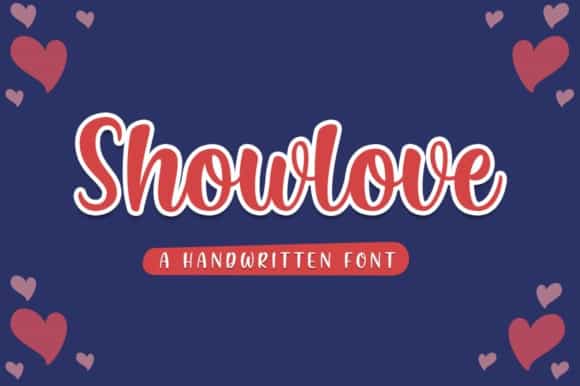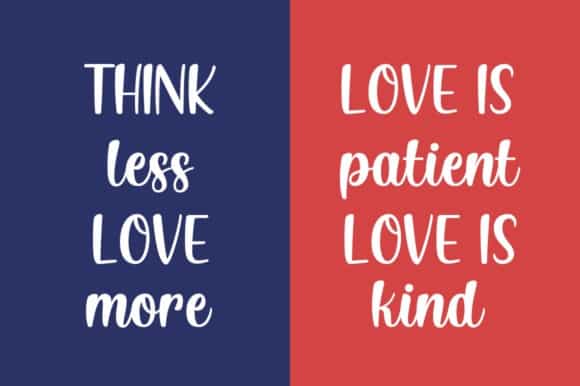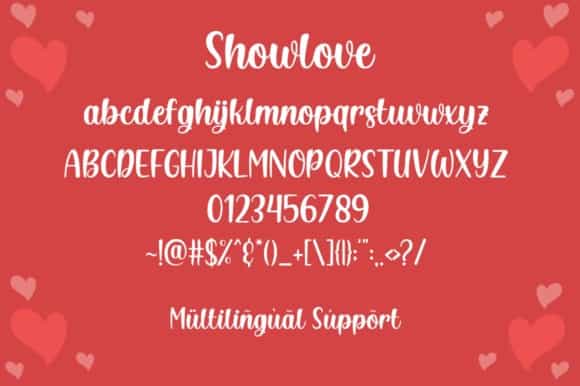
Showlove is a font written by hand with the style that is simple and classy, this kind of font will be great for your next projects such as watermark on photography, quotes, album cover, business card and many other design project. Even if all you need is a business card or a picture watermark, Holiday has got it covered and will take your work to the next level.